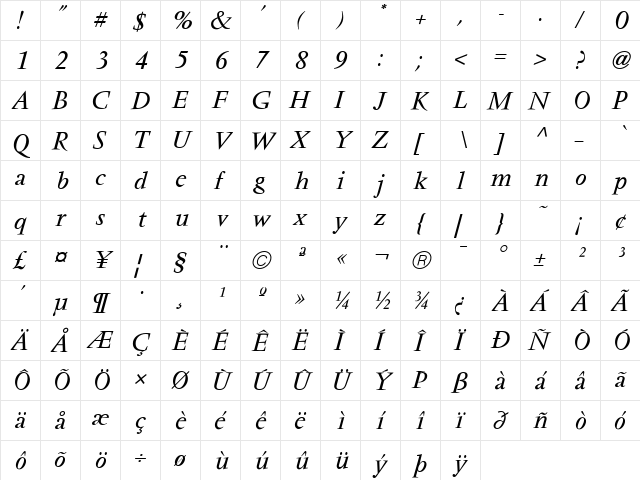
VendomeICG Medium Italic
Design Context for VendomeICG Typeface
VendomeICG takes a measured approach to typography — its balanced proportions and neutral character make it a reliable workhorse for both digital and print work. The slanted form adds forward momentum and visual energy.